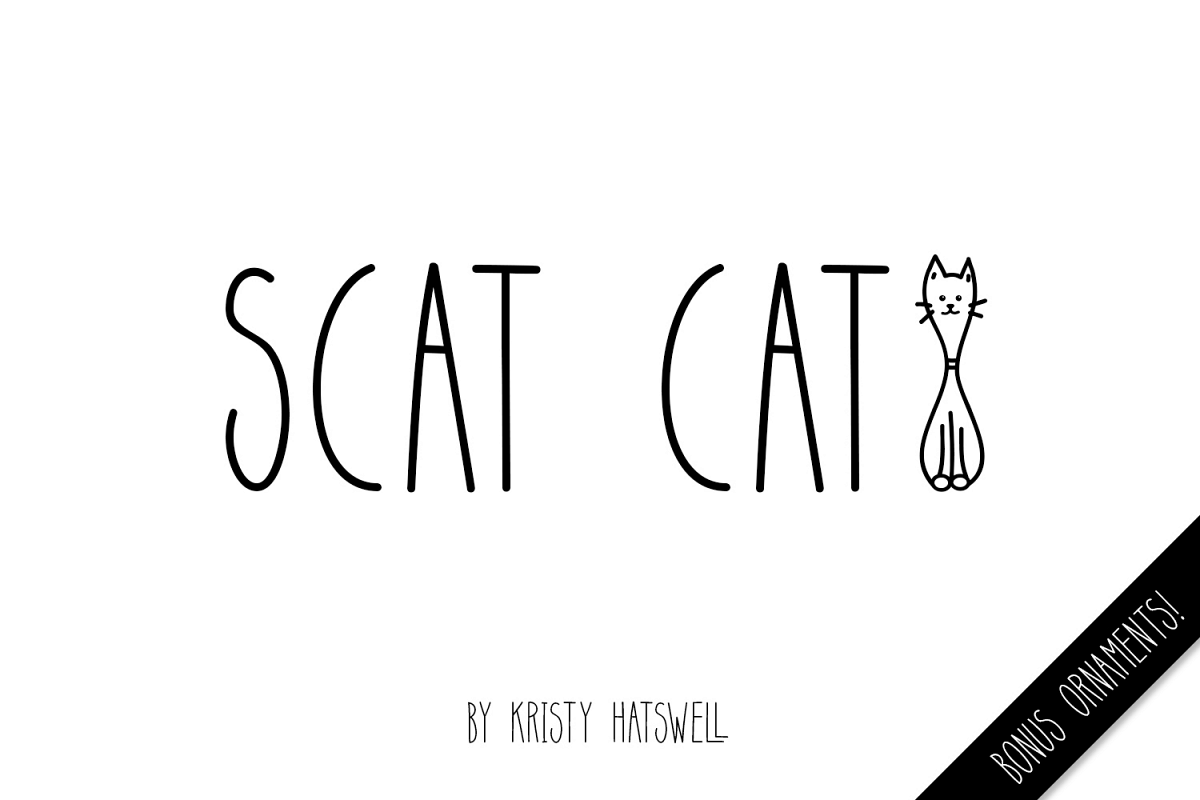
Scat Cat is a tall and skinny decorative font full of cattiness!
Included:- Cats and other fun ornaments are included in the bonus ornaments file
- Ligatures for every double letter, plus a few more ligatures for good fun
- A full set of stylistic alternates, multilingual and lots of punctuation